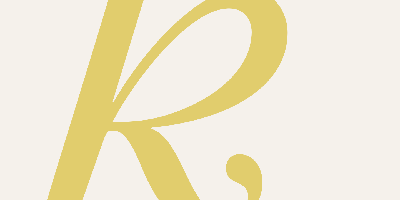
Los Angeles Duo Font
Los Angeles Duo Font is perfect for entertainment industry branding, Hollywood production companies, celebrity event materials, fashion week promotions, luxury lifestyle brands, West Coast startup identities, film festival graphics, and glamorous hospitality venues where star power and California dreams are essential.
What makes Los Angeles Duo Font exciting is its captivating dual-personality character that perfectly captures the glamorous duality of Hollywood's bright lights and laid-back California lifestyle. This font features complementary letterforms that blend sophisticated elegance with relaxed West Coast energy, mirroring the unique balance of high-stakes entertainment business and beachside creativity. Its magnetic presence instantly communicates success, creativity, and aspirational lifestyle that resonates with dreamers, innovators, and anyone drawn to the endless possibilities of the entertainment capital.
Los Angeles Duo Font family includes serif and sans-serif companion styles in multiple weights with matching italics, plus California-inspired decorative elements like palm trees, film strips, stars, and sunset ornaments that enhance the Hollywood atmosphere of any entertainment-focused design project.